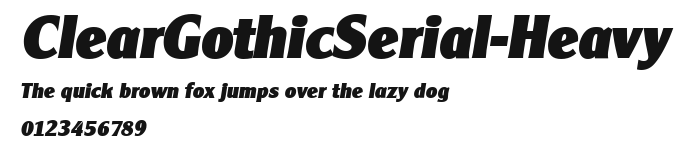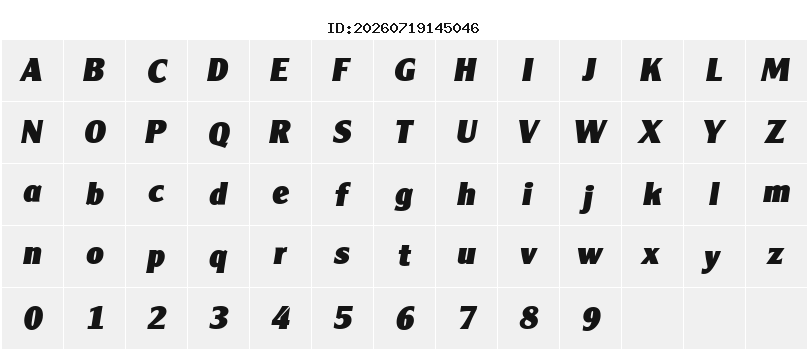
ClearGothicSerial-Heavy Preview
• Font Name: ClearGothicSerial-Heavy
• Designer: SoftMaker Software GmbH
About ClearGothicSerial-Heavy.ttf
ClearGothicSerial-Heavy.ttf is a modern, elegant sans-serif font designed for ultimate readability and visual harmony. Perfect for branding, headlines, web design, and print materials.